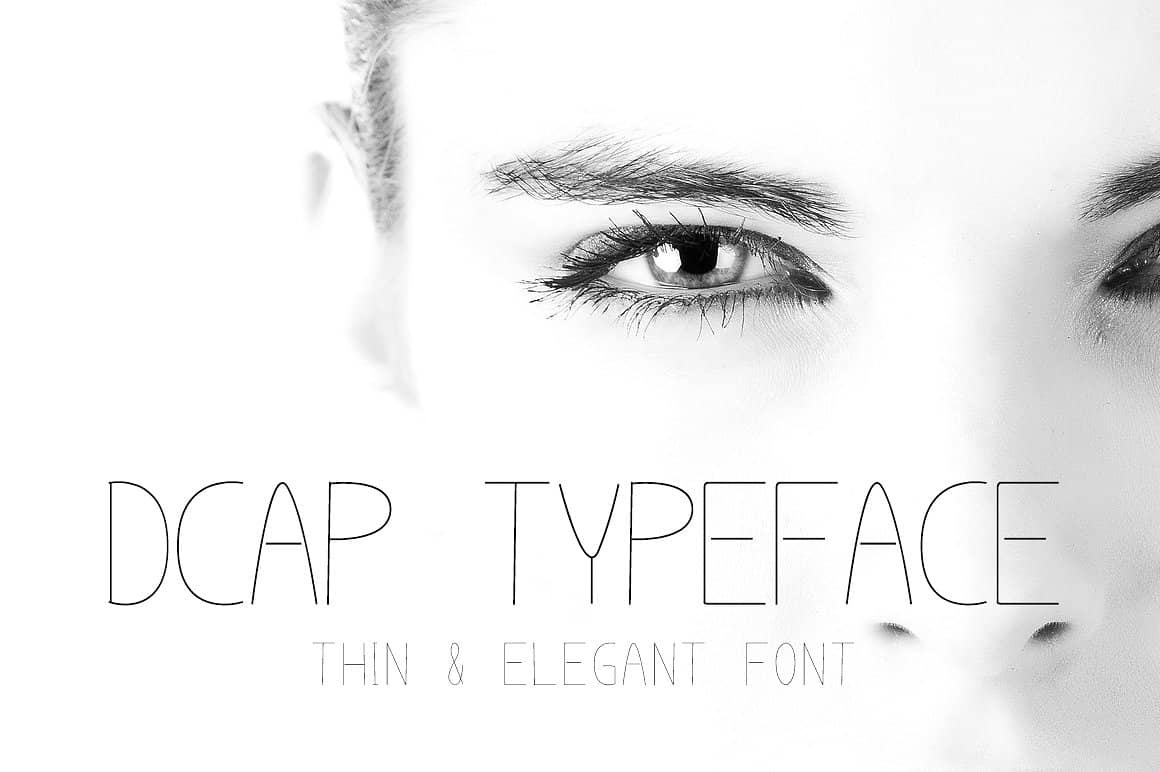
Dcap Typeface
A Thin and elegant font for your new project. can be used in logos as well. Introducing Dcap Font! It is designed and shared by pmvch. It’s an all caps font and supports multiple languages. You can use it for Web pages, Packaging design, Logo designs, Print design etc.